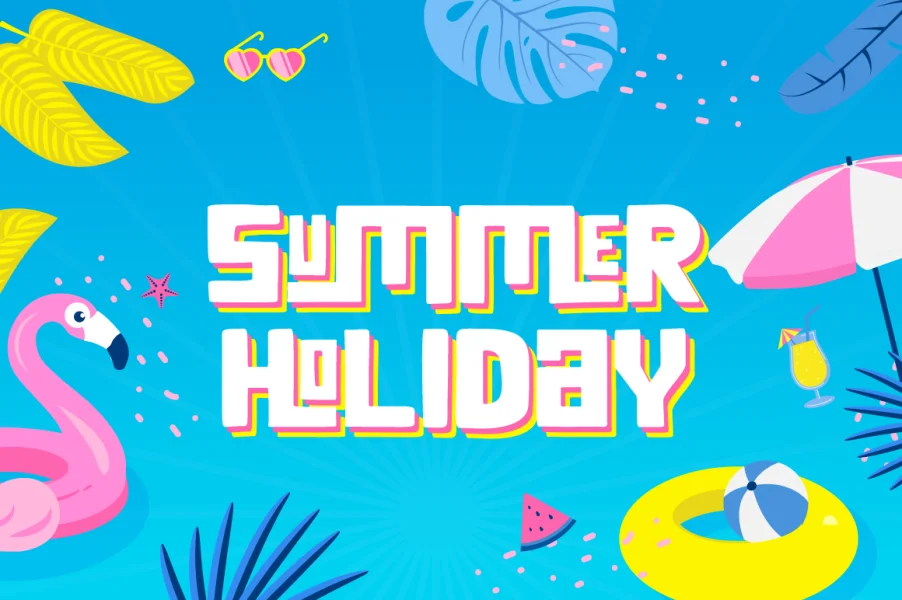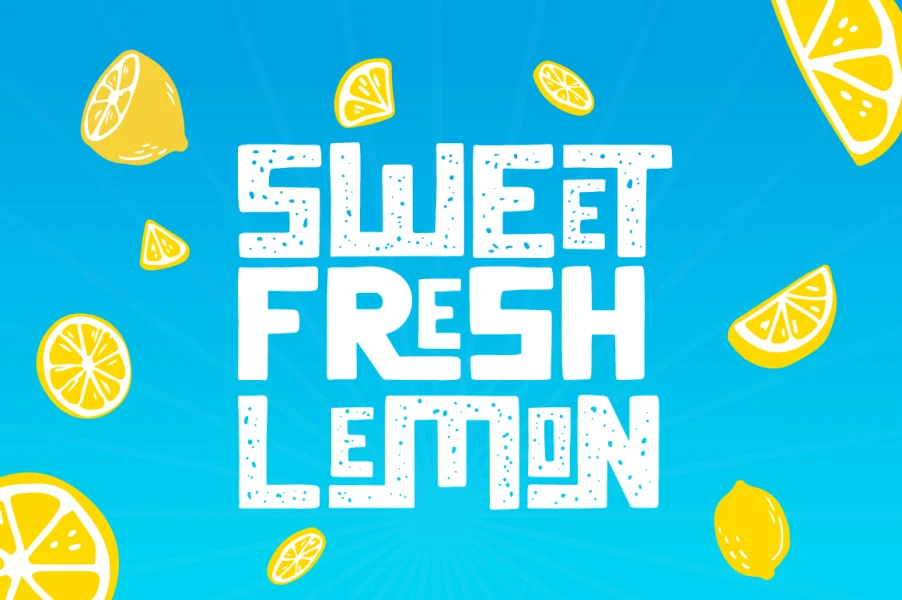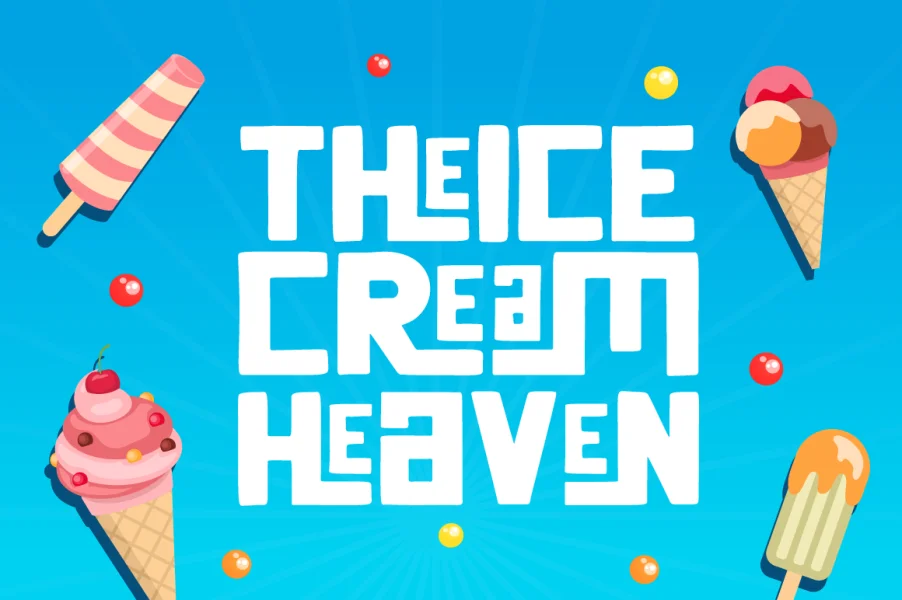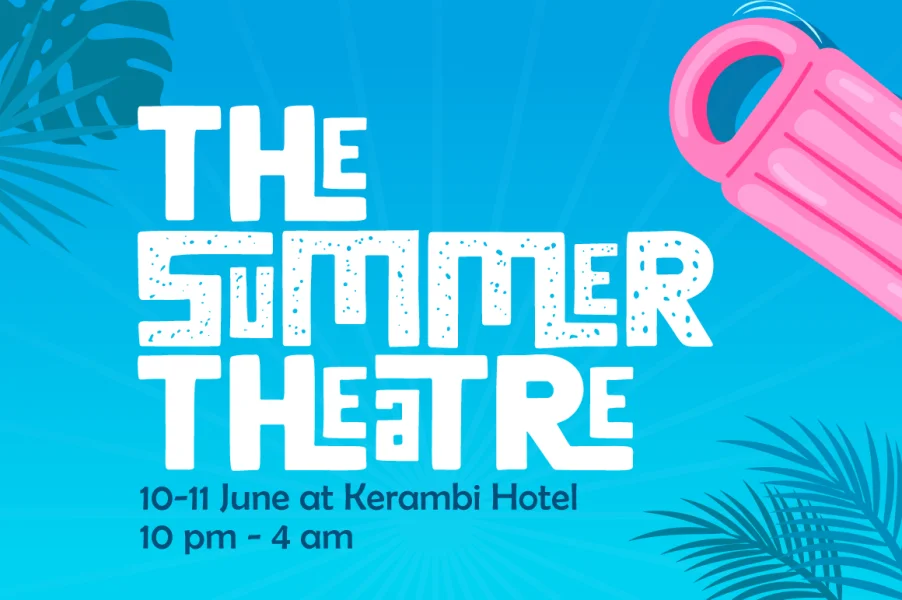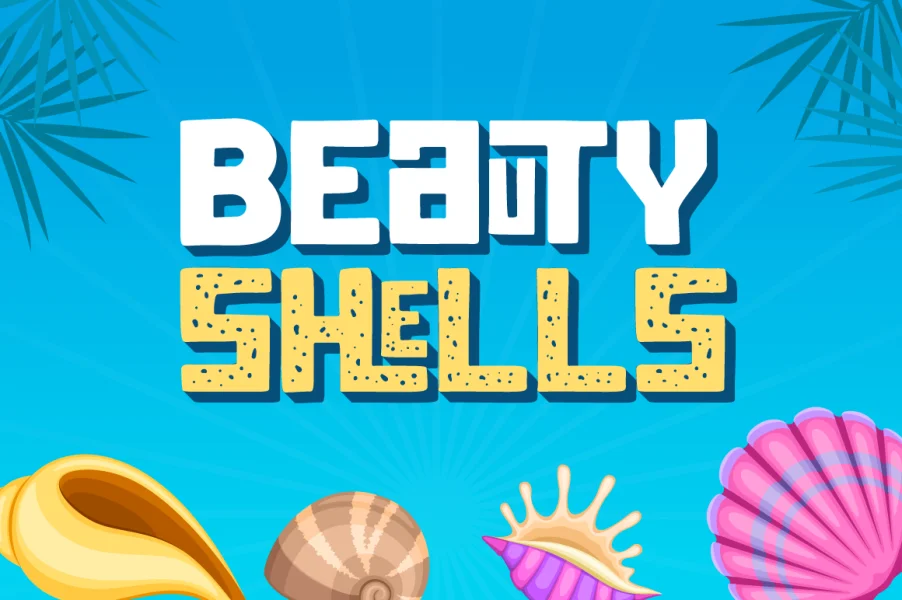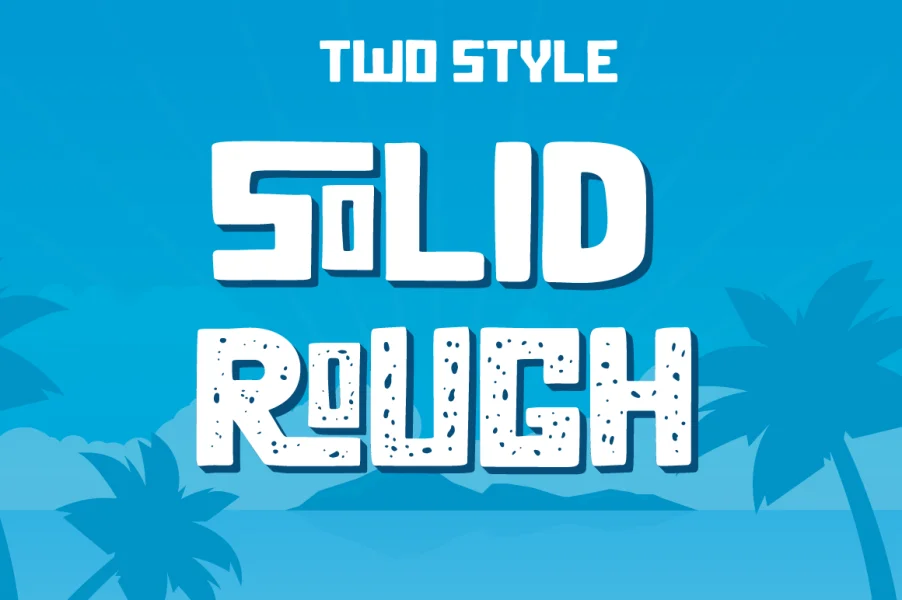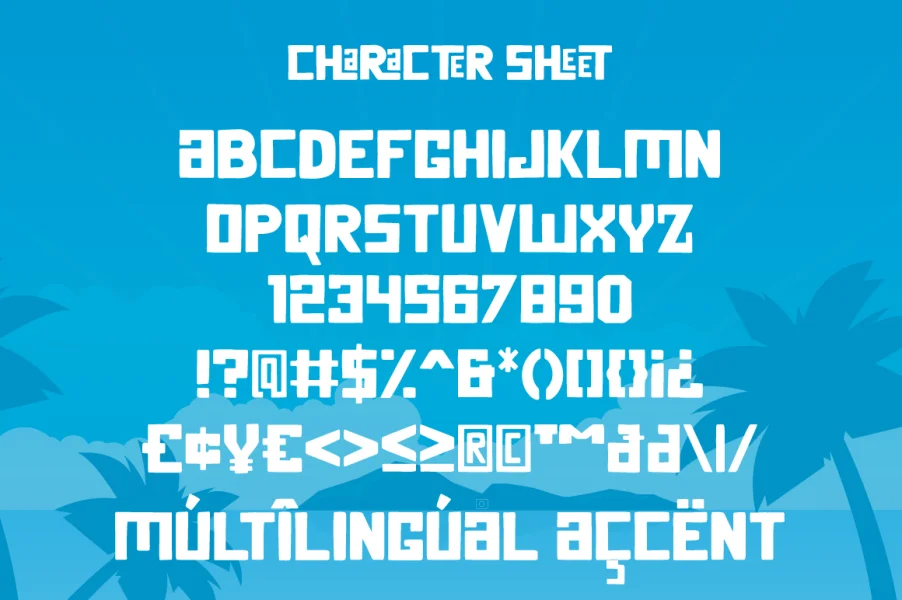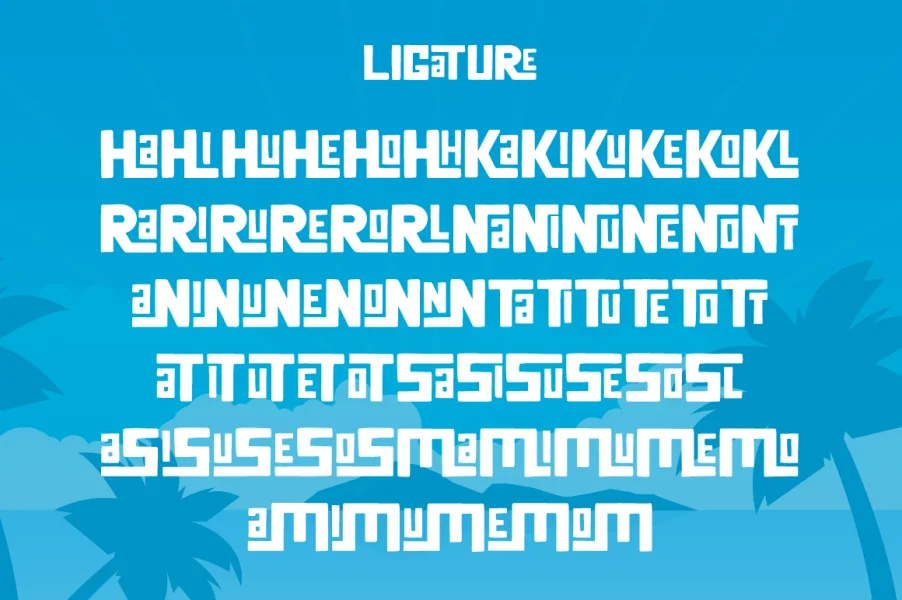
Summer Square is a strong font, this font is perfect for branding, logo, invitation, stationery, social media post, product packaging, merchandise, blog design, game titles, retro style design, Book/Cover Title and more.